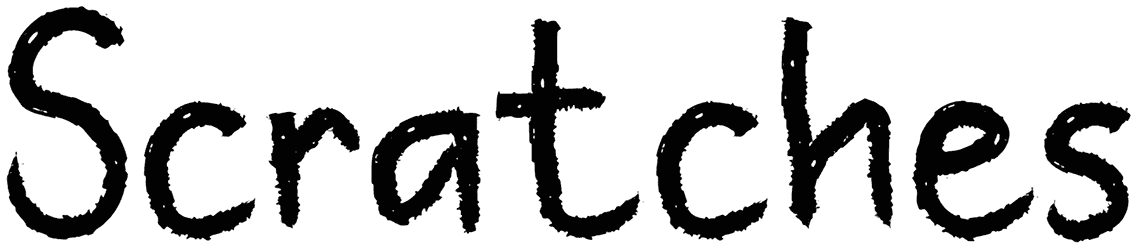
Scratches Font
For all who are thirsty for adding a genuine reflection on their assemblages, script font is a more well-paid job. This artwork with a likable and viable face can communicate with all individuals to arouse their curiosity and attention presently.